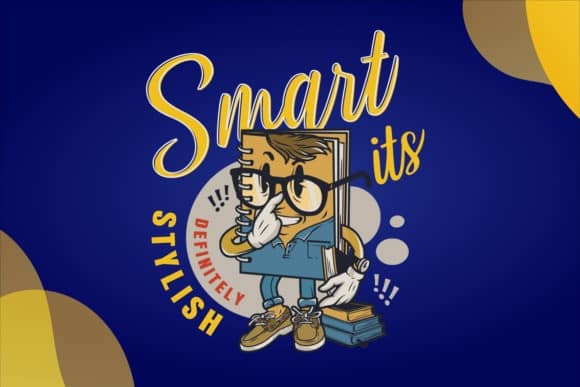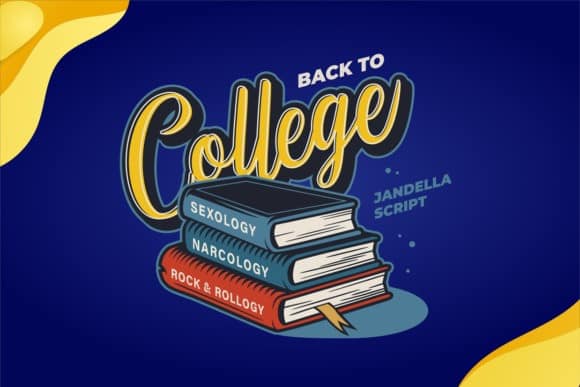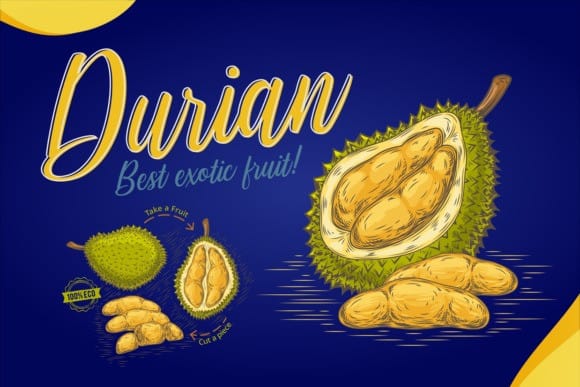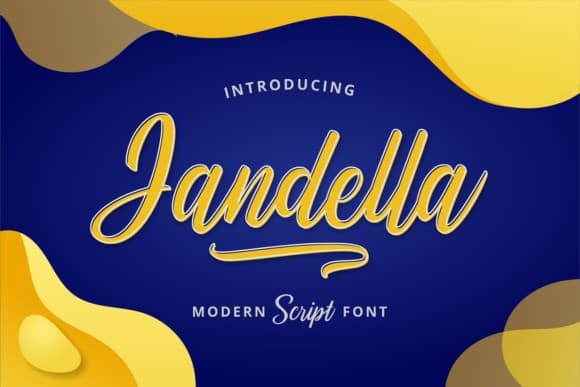
Jandella Script Font is a variety of updated calligraphy hands with special that have been given a combination of fantasy and handwritten ink. This typeface is designed and shared by brithostype. It’s a stylish and incredibly elegant script font. It looks stunning on wedding invitations, thank you cards, quotes, greeting cards, logos, business cards and every other design which needs a handwritten touch.